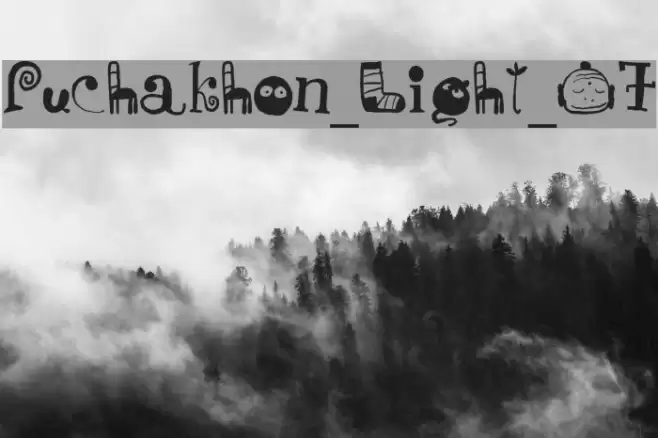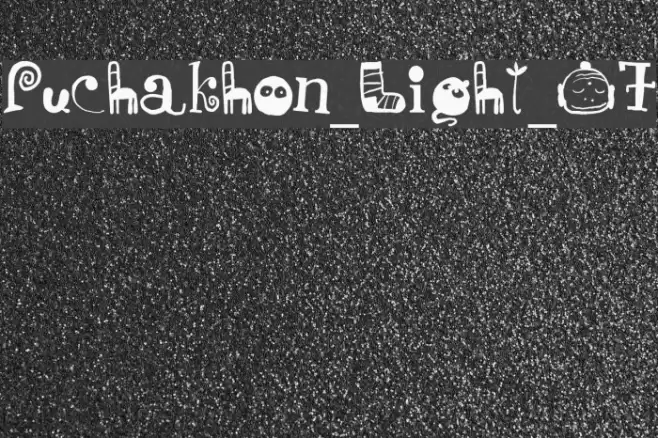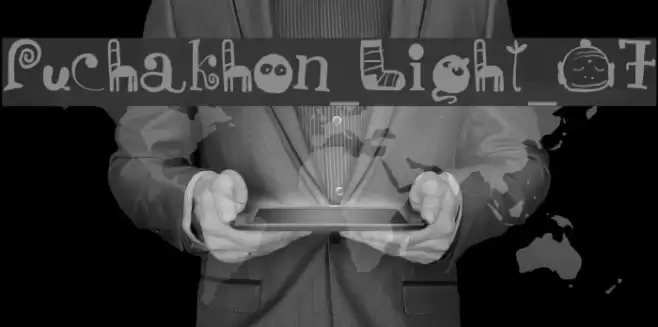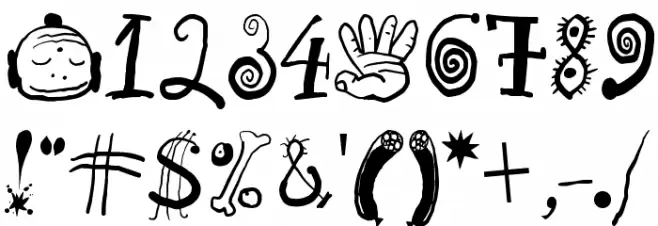
Puchakhon_Light_07 Font
Puchakhon_Light_07 Description
This whimsical and playful font features a variety of unique and quirky designs for each character. The uppercase letters are adorned with creative elements such as dots, stripes, and swirls, giving each letter a distinct personality. The lowercase letters continue this theme with imaginative embellishments, making the font highly decorative. Numbers and special characters are equally inventive, incorporating playful motifs like faces and hands. This font is perfect for projects that require a fun and artistic touch, capturing attention with its bold and imaginative style.
A whimsical and playful font with unique, decorative characters from Uncategorized fonts.